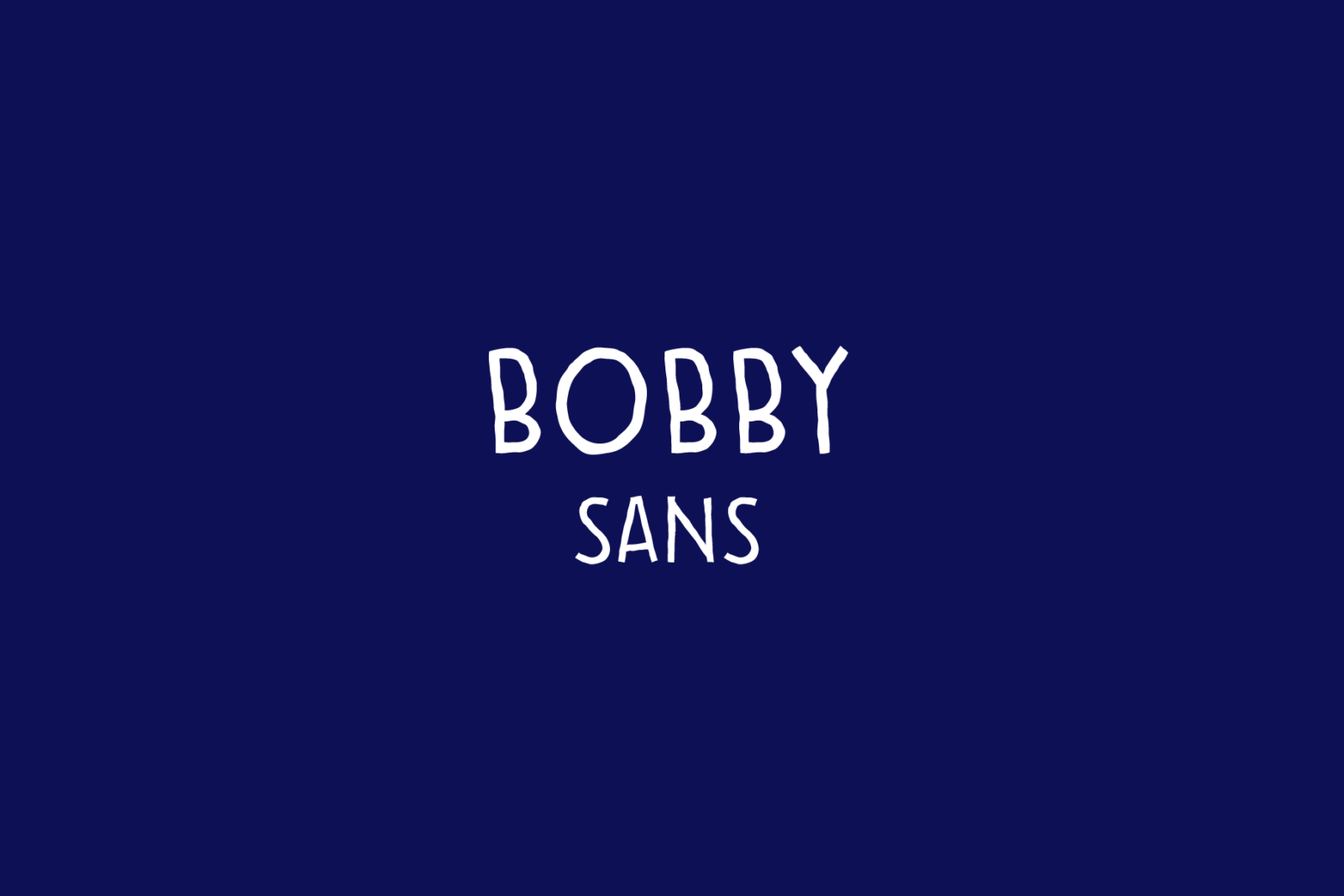
The Quest for the Perfect Font: Discovering Bobby
I still remember the frustration of working on a project, hours spent crafting the perfect design, only to be held back by one thing: the font. It was a client request for a logo that needed to be both cool and hip, but everything I tried seemed to fall flat. That was until I stumbled upon Bobby, a fun and charming handwritten sans serif font that would change the game.
First Impressions: What I Love About Bobby
Bobby is more than just a font; it’s a statement. Its subtle ripped edges give it a unique, laid-back vibe that’s perfect for creative projects. Here are a few things that immediately won me over:
- ✨ Unique Style: The ripped edges and smooth lines create a distinctive look that’s hard to achieve with standard fonts.
- ✅ Versatility: It’s suitable for a wide range of projects, from logos and titles to creative crafts and hobbyist projects.
- 💡 Instant Recognition: Bobby stands out in a sea of generic fonts, making your project more noticeable.
The Honest Review: Not Perfect, But Close
No font is perfect, and Bobby is no exception. A few quirks to keep in mind:
- 🤔 Legibility at Small Sizes: While Bobby shines at larger sizes, it can become a bit tricky to read when scaled down. It’s best used for headlines or logotypes rather than body text.
- ⚠️ Limited Formality: The ripped edges and casual vibe might not be suitable for very formal or professional projects. Know your audience!
The Story Behind Bobby: Designer Inspiration
Bobby was inspired by the laid-back, DIY culture of the 90s. Its creator wanted to capture the essence of handmade crafts and street art in a digital font. The result is a font that’s both nostalgic and refreshingly modern.
| Is Bobby suitable for professional projects? | While Bobby has a unique charm, its casual vibe might not be suitable for very formal projects. Consider your audience and project goals. |
| Does Bobby support OpenType features? | Yes, Bobby supports various OpenType features, including stylistic alternates and glyphs, which can enhance your design. |
| Is Bobby difficult to read at small sizes? | Bobby’s legibility at small sizes can be a challenge due to its design. It’s best used for headlines or larger text. |
Bobby is more than just a font; it’s a way to add personality and flair to your designs. Whether you’re a designer, crafter, or hobbyist, Bobby can help you achieve that cool, hip vibe you’re aiming for. So go ahead, give Bobby a try, and see how it can transform your creative projects!